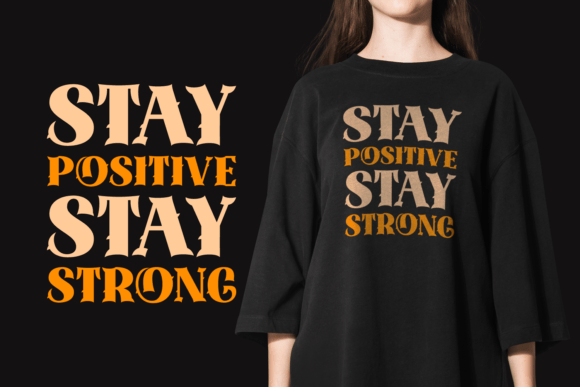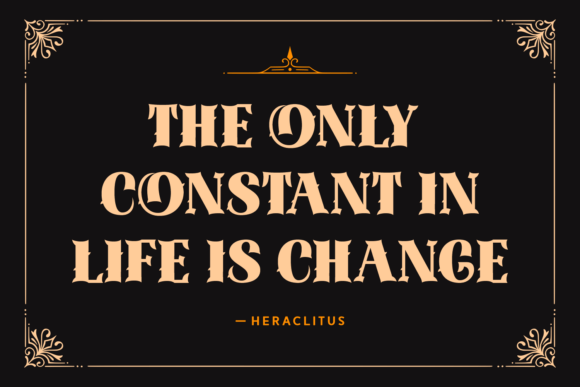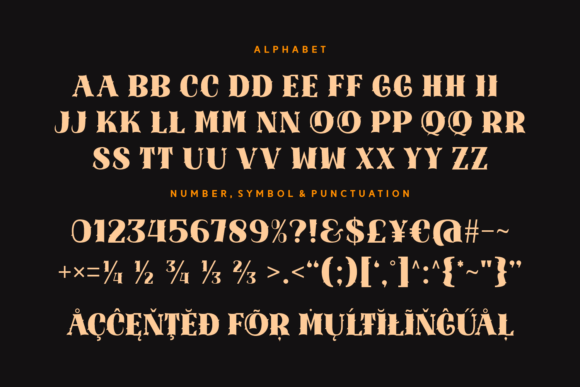
Introduction to Rysel Font
Remember that moment when you’re working on a creative project and you just can’t find the right font to match your vision? You scroll through page after page of options, but nothing seems quite right. That’s exactly what happened to designers when they stumbled upon the Rysel Font – a game-changing, high-quality design resource that elevates any project to the next level.
With its bold, flared serifs and classic, late 19th-century aesthetic, the Rysel Font is the perfect choice for vintage branding, posters, and labels. Whether you’re working on a personal project or a client’s campaign, this versatile font is sure to add a touch of sophistication and style. And the best part? The Rysel Font is available for free download, making it an invaluable resource for designers of all levels.
Key Features of Rysel Font
- Rysel Font is a design resource that offers a unique and stylish look, making it perfect for modern and creative projects.
- Rysel Font is designed to be versatile and can be used in a variety of creative projects, from brochures to business cards and more.
Honest Review: Rysel Font
I recently stumbled upon the Rysel Font, a free design resource that has caught my attention. The high quality of this font is evident from the moment you start using it. It’s a versatile tool that can elevate your creative project and add a touch of sophistication.
- ✨ The font is highly customizable, allowing you to adjust the size, color, and style to suit your needs.
- ⚠️ Some users may find the font to be too modern or trendy, which may not appeal to all design styles.
Overall, I’m impressed with the Rysel Font and its potential to enhance any creative project. Its high quality, transparent background, and free download option make it a valuable design resource. However, it’s essential to be aware of its limitations, especially regarding commercial use and design style compatibility.
Getting the Most Out of Rysel Font
To get the most out of the Rysel Font, use it in conjunction with other design resources to create a cohesive and high-quality design. Experiment with different font sizes, colors, and styles to add depth and visual interest to your project.
The Rysel Font is ideal for use in a variety of creative projects, including logos, business cards, and social media graphics. Its high quality and transparent background make it a great choice for designers who want to create a professional and polished look.